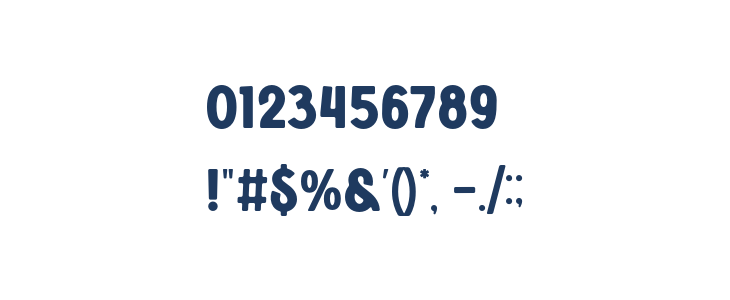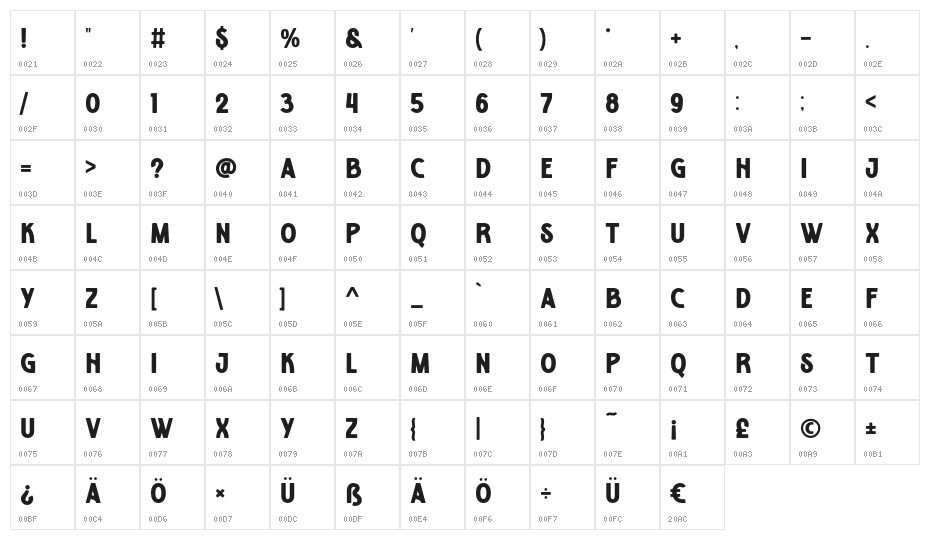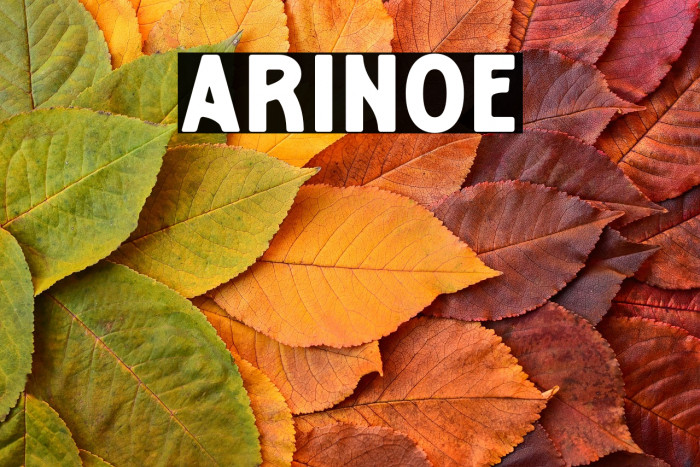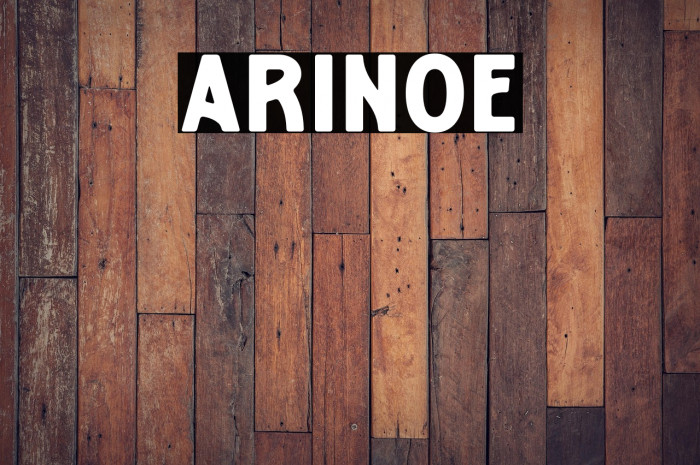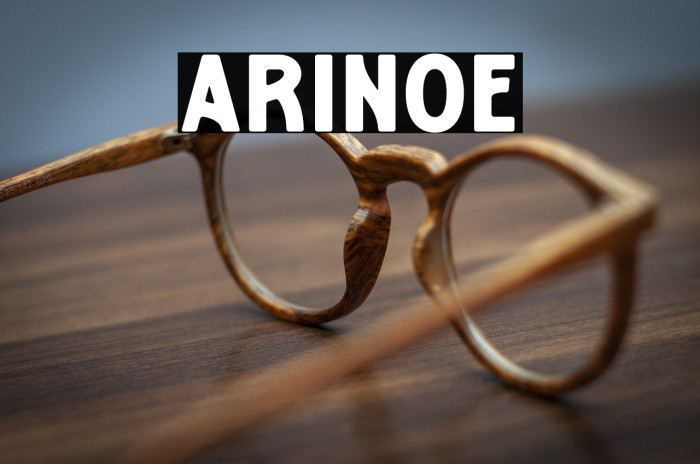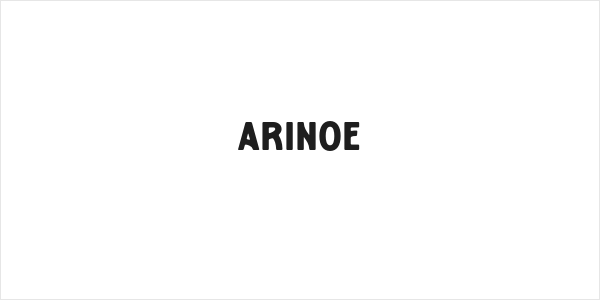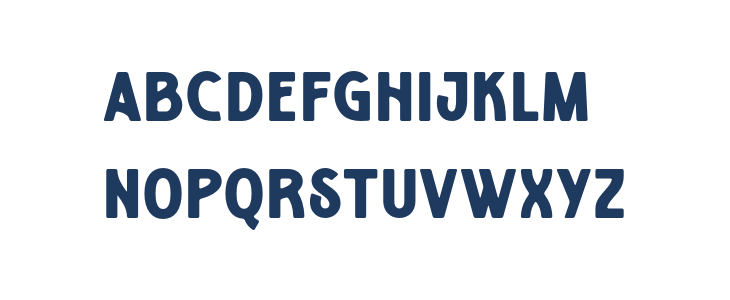
Arinoe Font
Arinoe Description
This font features bold, rounded characters with a playful and approachable style. The uppercase and lowercase letters maintain a consistent weight, giving the typeface a uniform appearance. The numbers and special characters are designed to match the overall aesthetic, ensuring a cohesive look across all text elements. The font's rounded edges and thick strokes contribute to its friendly and inviting feel, making it suitable for a variety of design applications. Its readability is enhanced by the clear distinction between each character, while the consistent stroke width provides a balanced and harmonious appearance.
| Overall Style | Playful, Modern |
| Proposed Projects | Ideal for children's books, playful branding, posters, and social media graphics. |